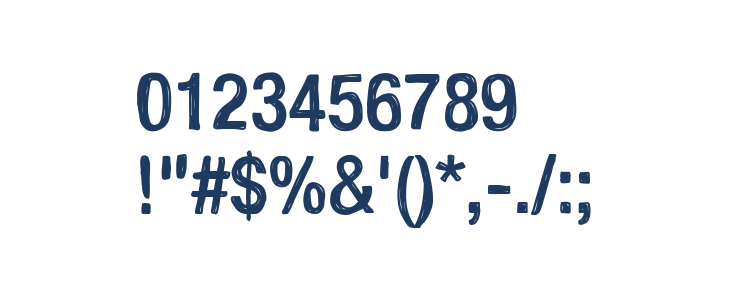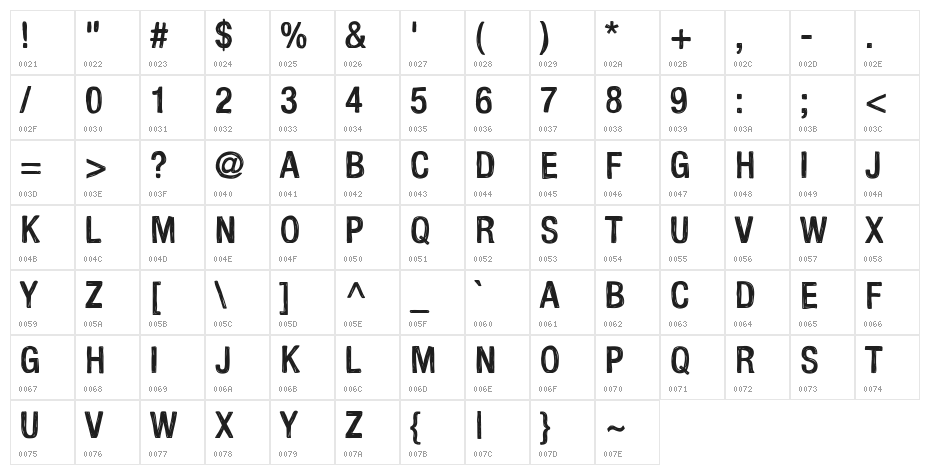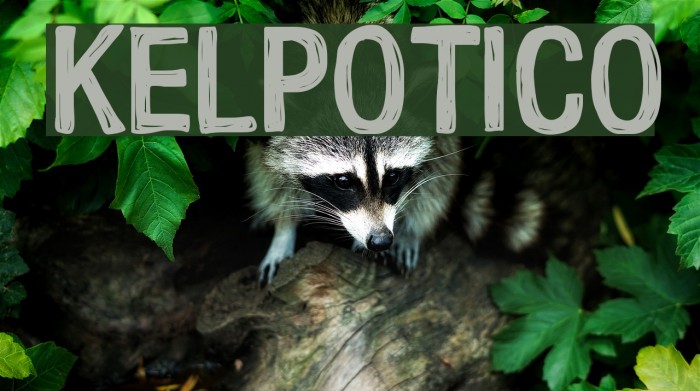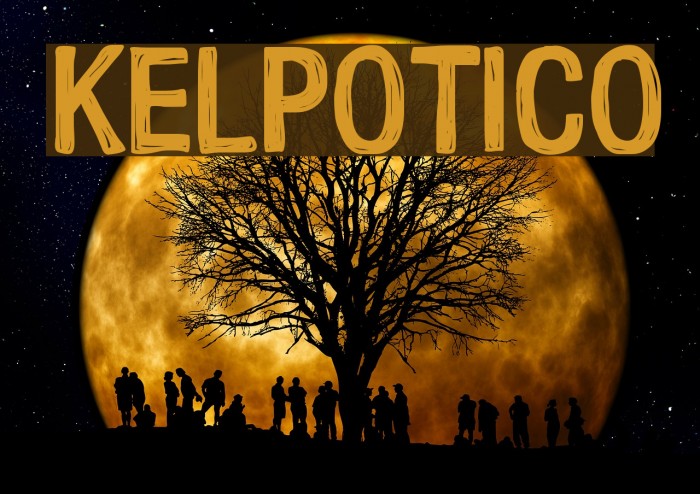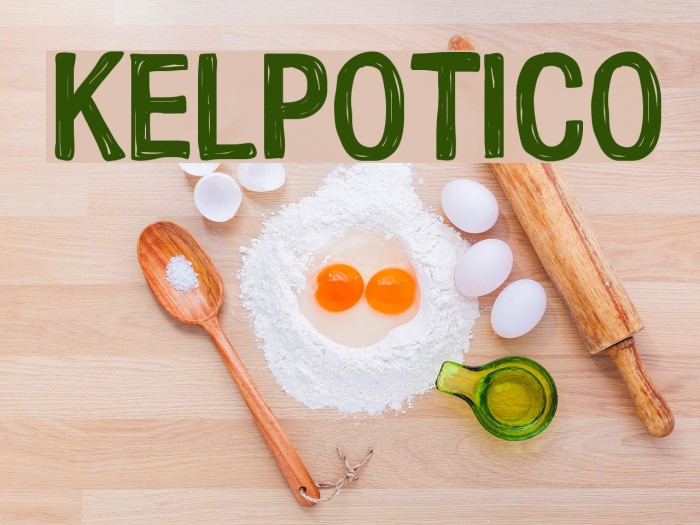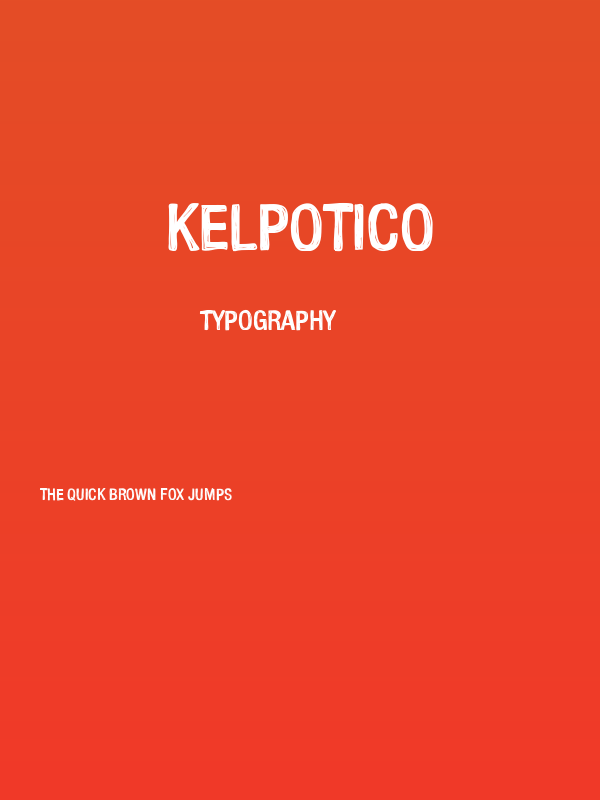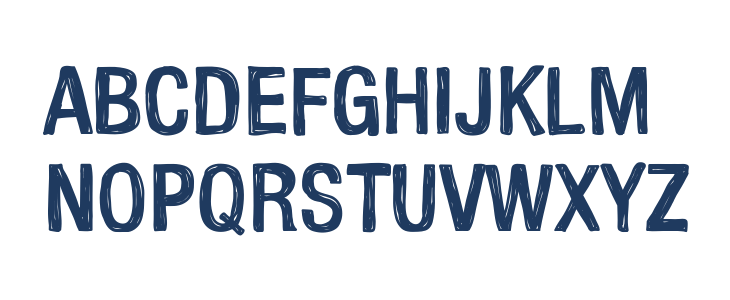
Kelpotico Font
Kelpotico Description
This font features a bold and playful design with a hand-drawn aesthetic. The characters are thick and slightly irregular, giving them a casual and informal appearance. The strokes are uneven, adding a sense of movement and energy to the text. This style is reminiscent of chalk or marker writing, making it ideal for projects that require a fun and approachable look. The font maintains a consistent weight throughout, with wide character spacing that enhances readability. Its unique style makes it stand out, perfect for creative and artistic applications.
| Use Case | Headlines, Posters, Creative Branding |
| Proposed Projects | Ideal for posters, children's books, event flyers, and creative branding. |